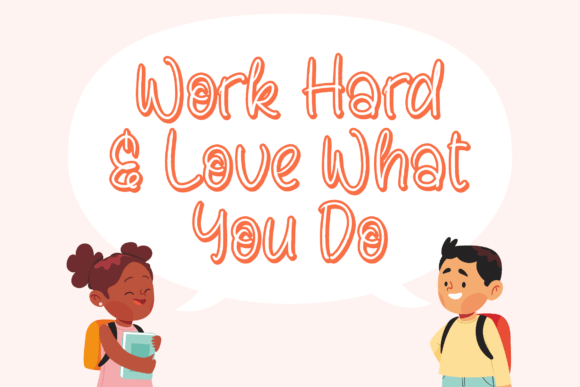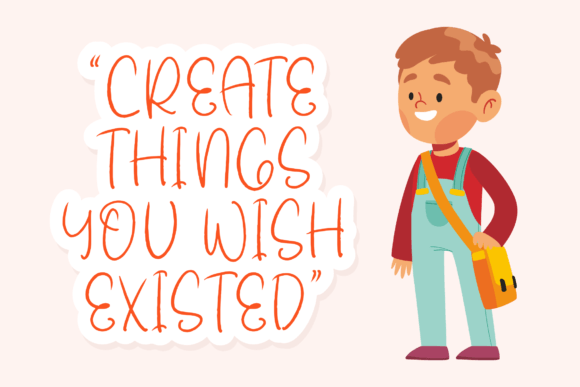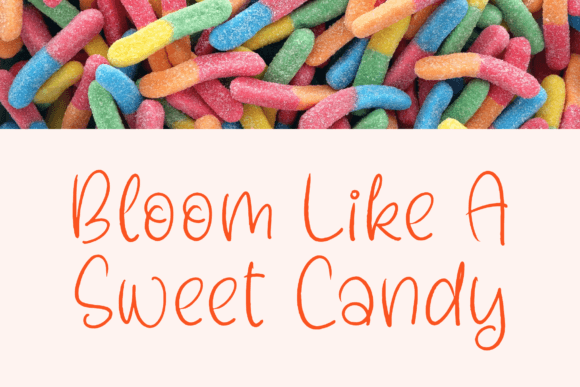
Introduction to Mandeylas Childish Font
Have you ever stumbled upon a font that instantly sparks your creativity and transports you to a world of endless possibilities? For many designers, this moment of discovery can be a game-changer. It’s the moment when a high-quality font like the Mandeylas Childish Font becomes the perfect catalyst for a creative project.
Whether you’re working on a digital design, crafting a handmade card, or putting together a presentation, the right font can make all the difference. The Mandeylas Childish Font is no exception – its playful and cute handwritten style has the potential to elevate any design to the next level. With its transparent background and free download availability, this design resource is a valuable addition to any designer’s toolkit.
Key Features of Mandeylas Childish Font
- High-quality design: This font is perfect for creative projects that require a playful and whimsical touch.
- Unique characteristics: The Mandeylas Childish Font features a distinctive, childlike appearance with rounded edges and playful letterforms.
- Design resource: This font is an excellent resource for designers, illustrators, and artists looking to add a touch of whimsy to their work.
Honest Review: Mandeylas Childish Font
I recently stumbled upon the Mandeylas Childish Font while searching for a unique font to use in a creative project. I was immediately drawn to its quirky and playful style, which I think would be perfect for a children’s book or a fun logo design.
The font is available for free download, which is always a plus in my book. It’s also a high-quality font, with clear and crisp characters that are easy to read. I appreciate that the font comes with a transparent background, making it easy to use on any design resource.
- Unique and playful style
- High-quality font with clear characters
- Transparent background for easy use
- May not be suitable for formal or professional projects
- Limited character set (only includes uppercase and lowercase letters, with a few punctuation marks)
Overall, I’m impressed with the Mandeylas Childish Font and would definitely recommend it for any creative project that calls for a fun and playful look. Just be aware of its limitations, and use it wisely!
The Mandeylas Childish Font is ideal for a variety of creative projects, including social media graphics, blog posts, and marketing materials. Its playful and whimsical design makes it perfect for branding and advertising campaigns.